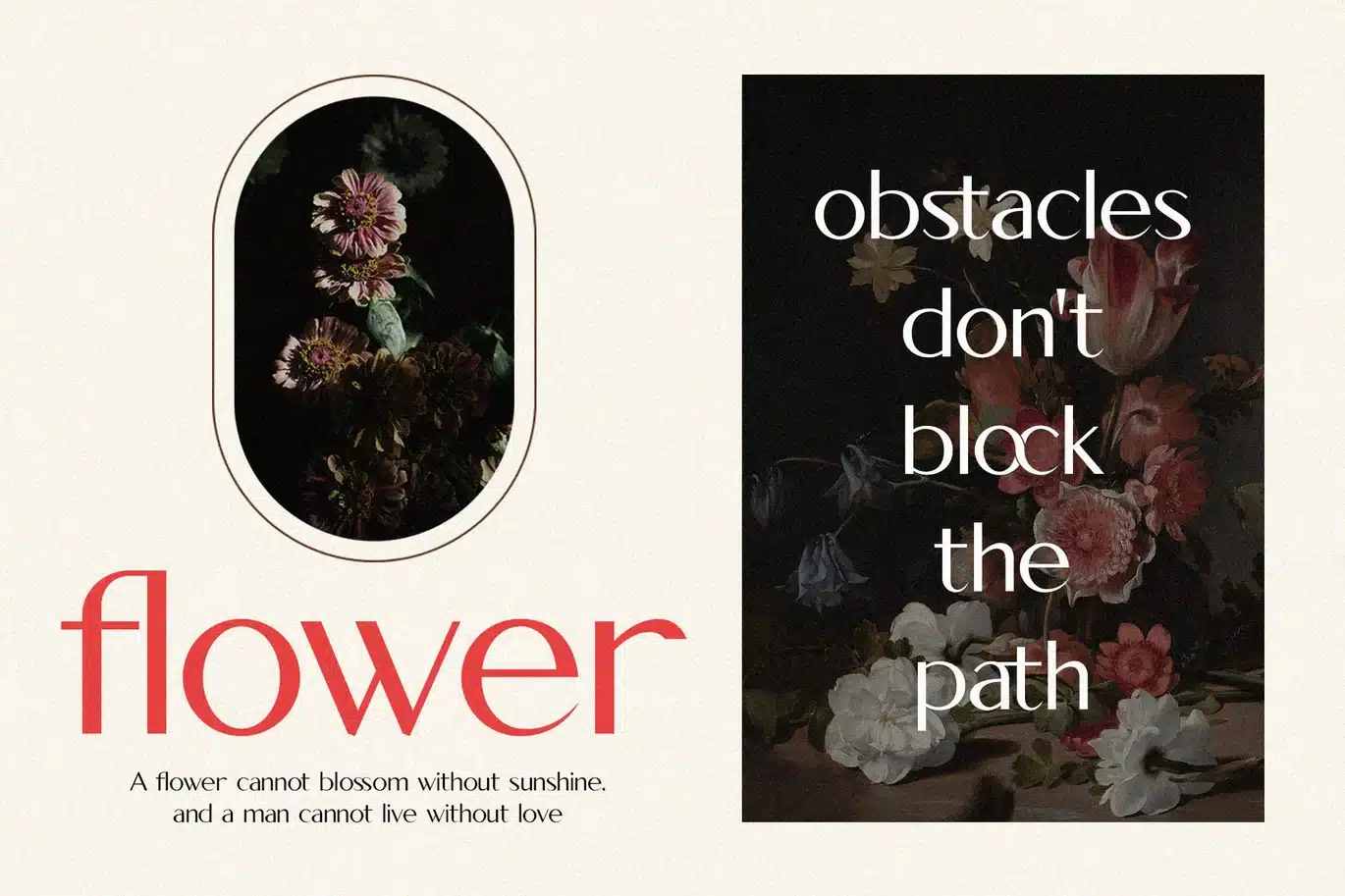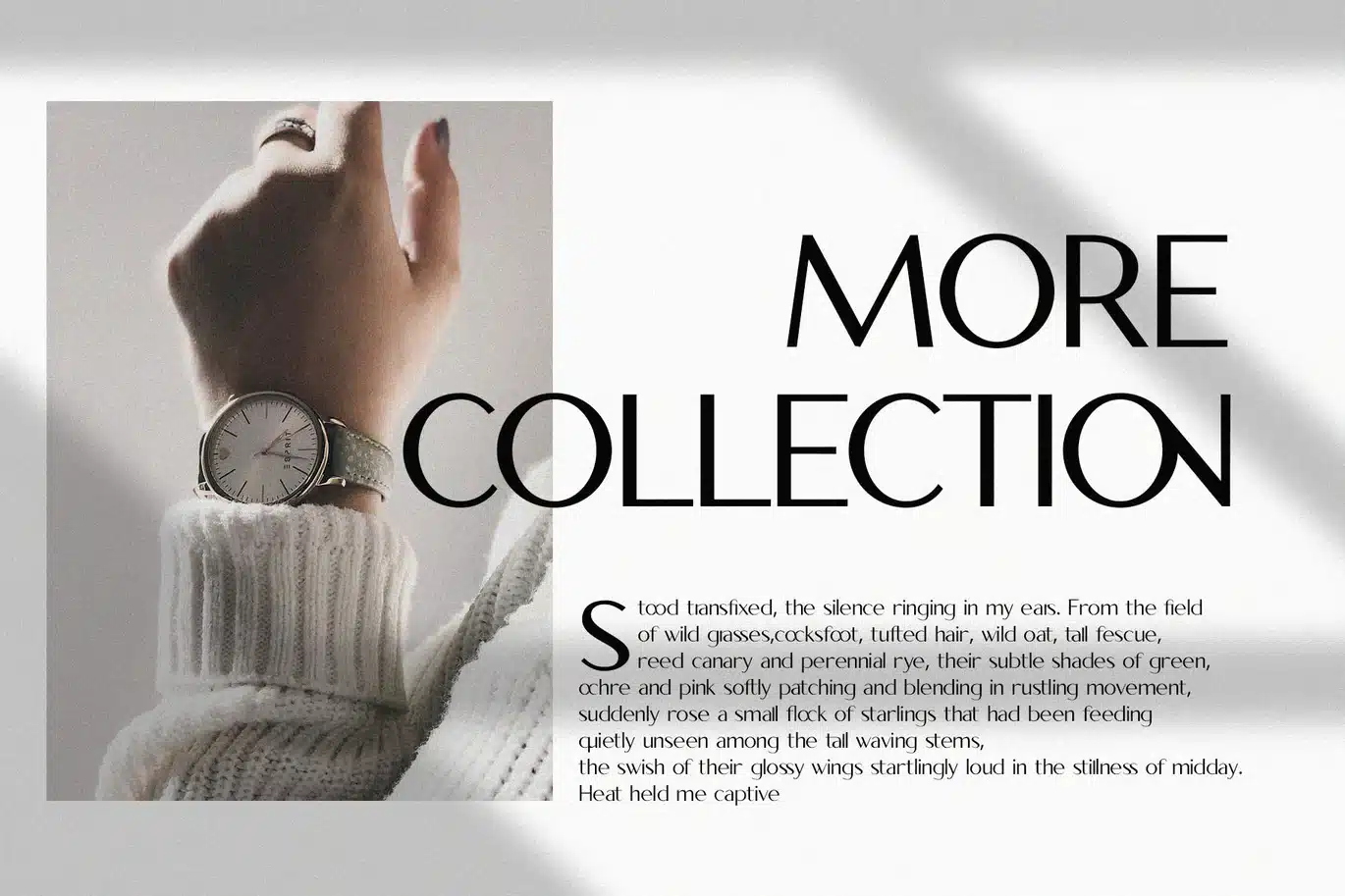
Hoodger Sans-Serif Font
Introducing the Hoodger Modern Sans-Serif Font.
Neatness in each character of the letter is our top priority in making this font.
Hoodger Sans-Serif fonts prioritize neatness and accentuate a modern and elegant impression.
Hoodger fits for any design projects, such as posters, banners, logos, invitations, magazine covers, quotes, headings, printed products, social media, etc.